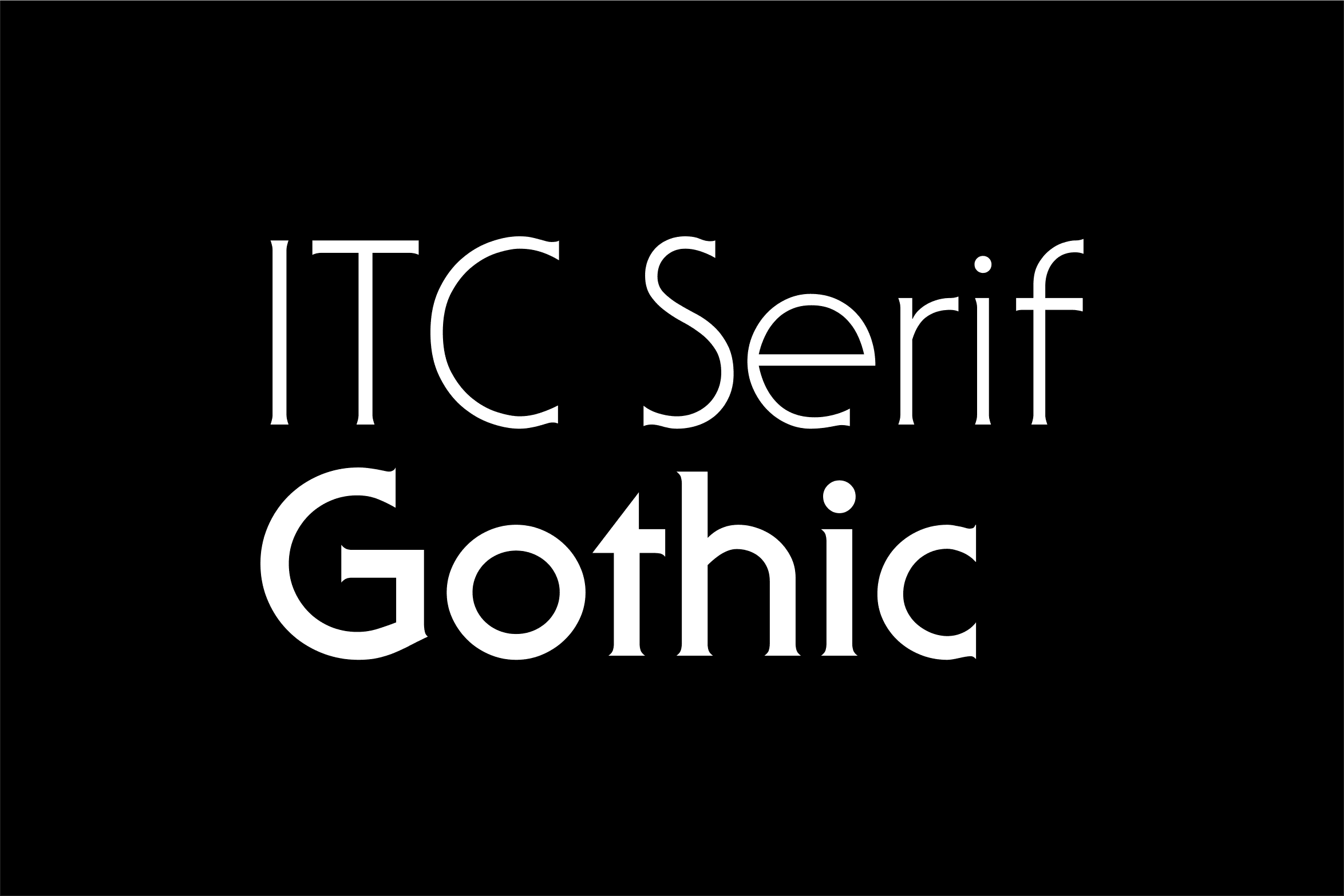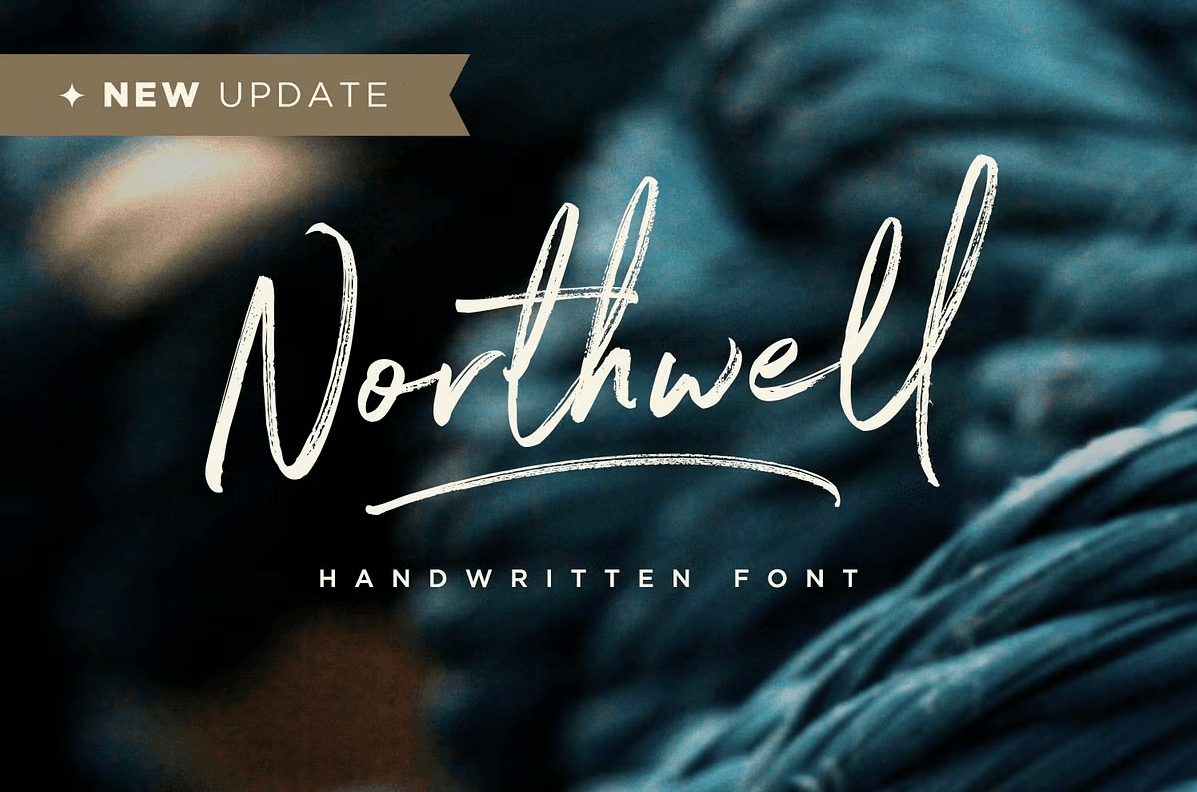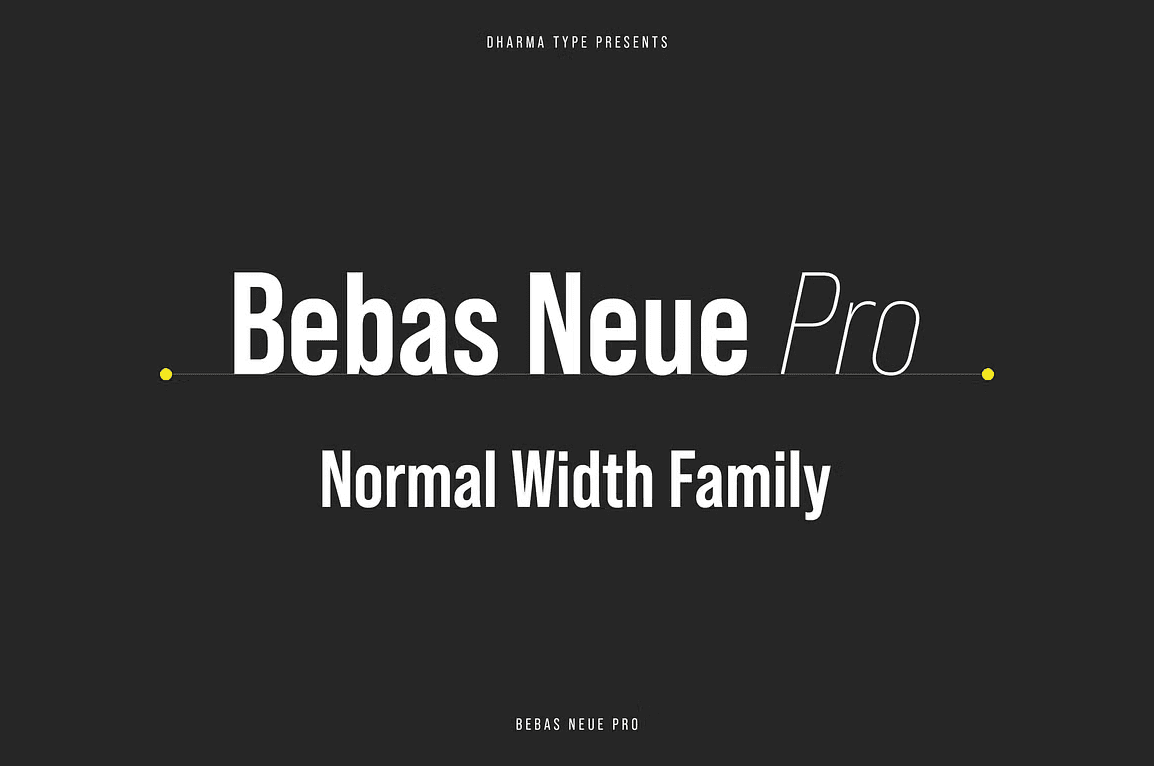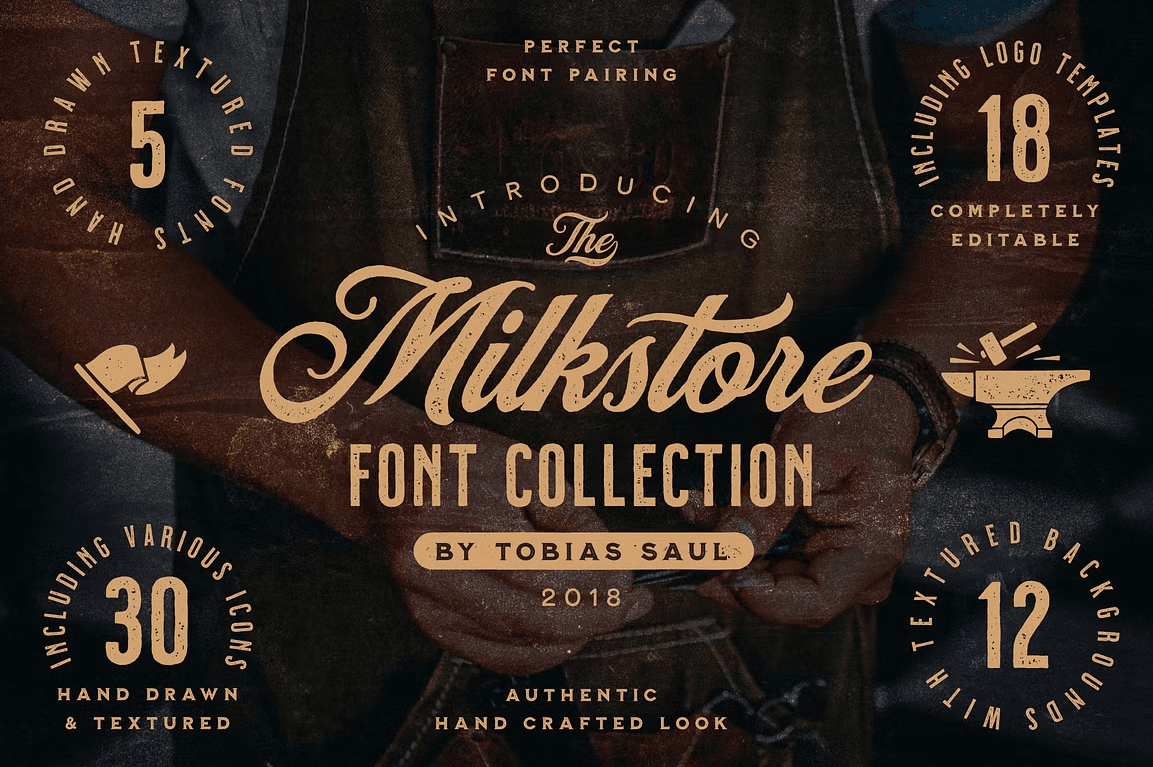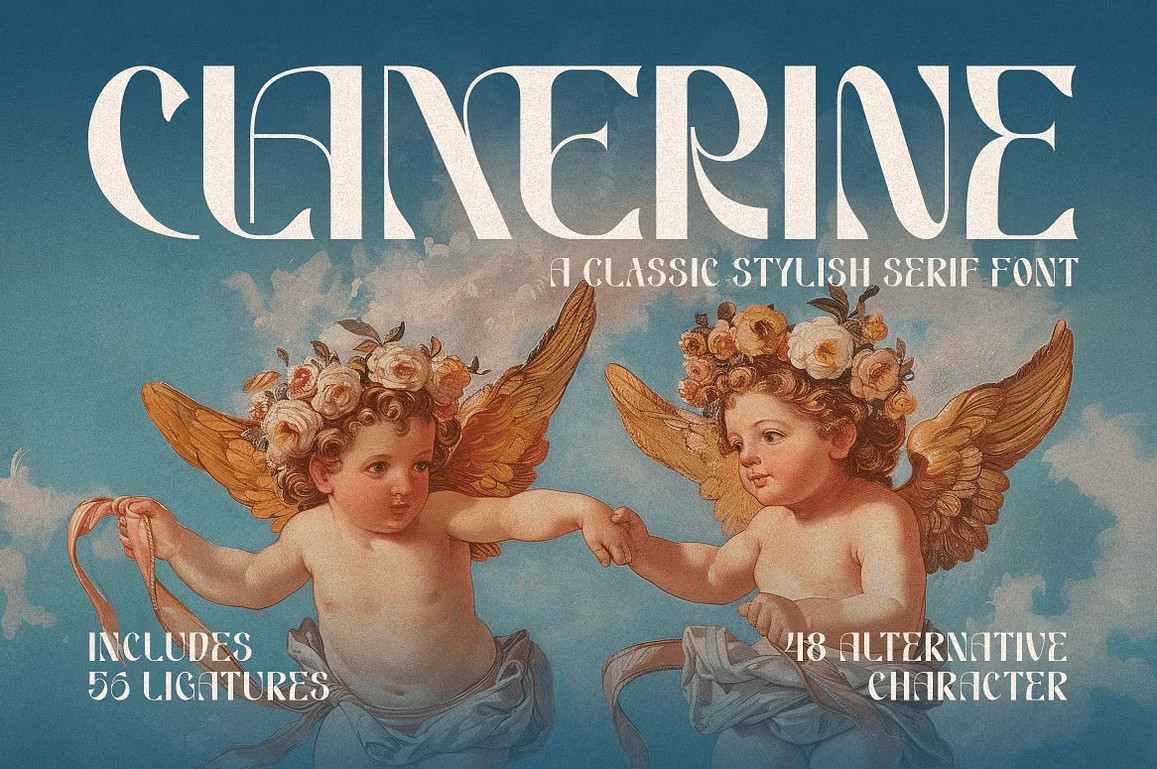
Typography isn’t just a design choice—it’s your brand’s first impression, its silent ambassador, and often, the reason someone pauses… or scrolls past. In an era of visual overload and lightning-fast decisions, choosing the right font can be the game-changing catalyst that transforms a business from overlooked to unforgettable. As we step into 2025, brands that dare to be distinctive—those that communicate with soul, confidence, and character—are the ones that will emotionally resonate and convert like wildfire. In this curated list, you’ll discover 10 striking fonts (including exclusive picks from Figuree Studio) that are bold, beautiful, and crafted to captivate your audience.—featuring a standout option from Figuree Studio.
1. The Bratsy Script – ✦ Expressive Bold Script
If your brand needs a dose of personality and elegance, look no further than The Bratsy Script. This typeface is a bold, handcrafted script font with dramatic swashes, ligatures, and over 400+ glyphs to offer exceptional versatility. Perfect for high-impact branding, logos, personal signatures, and fashion-related visuals, The Bratsy Script effortlessly blends modern calligraphy and commercial usability. Its bold strokes and fine-tuned balance give off a confident, luxurious feel that resonates across packaging, Instagram graphics, and boutique branding.
2. Northwell – ✦ Casual, Rustic Brush Font
Northwell is a brush-style handwritten font designed to look natural, textured, and free-flowing. It mimics real handwriting with varied stroke widths and slight imperfections, giving brands a more approachable, down-to-earth look. This makes it ideal for lifestyle branding, artisan shops, and products aiming for authenticity and human warmth. With both regular and swash versions included, it adds flexibility and expressiveness to branding efforts.
3. Bebas Neue Pro – ✦ Refined All-Caps Sans-Serif
A professional redesign of the beloved Bebas Neue, this Pro version brings expanded weights, italics, and language support to the classic all-caps display font. Its tall, clean lines and commanding presence make it perfect for headlines, posters, and logos that require instant attention. Unlike its free cousin, Bebas Neue Pro offers a more polished and comprehensive type system, giving designers full control over hierarchy and tone.
4. Serif Gothic – ✦ Timeless with a Retro-Futuristic Edge
Created by legendary designer Herb Lubalin, Serif Gothic combines the structural strength of sans-serifs with the detail of serifs, creating a distinctive typeface that feels both nostalgic and futuristic. It’s frequently used by brands that want to balance heritage with innovation. Think high-end skincare, high-fashion editorials, or lifestyle brands that are forward-thinking but rooted in tradition.
5. Milkstore Font Family – ✦ Retro with a Modern Twist
Milkstore is a retro sans-serif font family that brings vintage charm into contemporary branding. It features a layered system (shadow, outline, rough) that allows endless combinations. Its strong, structured forms and nostalgic curves make it perfect for brand marks with character—ideal for coffee brands, barbershops, or organic grocery packaging.
6. Huitside – ✦ Elegant High-Fashion Serif
Huitside is a luxury serif font with a fashion-forward attitude. Its elegant strokes and stylish ligatures exude sophistication, making it ideal for editorials, cosmetics packaging, luxury branding, and wedding businesses. The font’s high contrast and distinct personality help elevate any composition into something premium. It’s designed to command attention while still feeling clean and timeless.
7. Black Mango – ✦ Soft-Edged Modern Serif
By: Creativemedialab
A balanced mix of contemporary and classic, Black Mango is a soft-edged serif with elegant shapes and fluid curves. Its multiple weights and italics make it a flexible choice for logos, headlines, and sophisticated body copy. This font is especially effective in wellness, high-end beauty products, and creative portfolios where balance and beauty matter.
8. Amastery Font Duo – ✦ Creative Script + Sans Combo
By: BlackCatsMedia
Amastery is a value-packed font duo featuring a handwritten script and a clean sans-serif pair. The script is full of character, ideal for branding that needs a feminine or artistic feel, while the sans complement it with clarity and professionalism. Together, they form a harmonious identity system for personal brands, creative agencies, and product packaging.
9. Moon – ✦ Rounded Sans Serif
By: Jack Harvatt
A modern, minimalist typeface with soft rounded corners, Moon is perfect for brands that want to look friendly, futuristic, and clean. It’s available in light and bold weights, making it suitable for both body text and headers. Moon works well in tech, skincare, and digital creative industries.
10. Clamerine – ✦ Classic Stylish Font
Clamerine a Classic Stylish Font is made for any professional project branding, such as logotypes, watermarks, posters, branding, promotions, product packaging, etc. Every letter has a classic style design. This font comes in regular style.